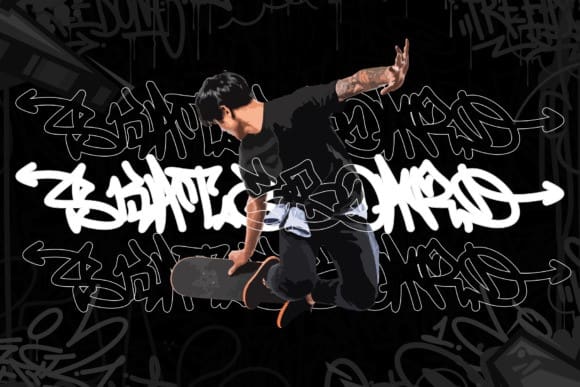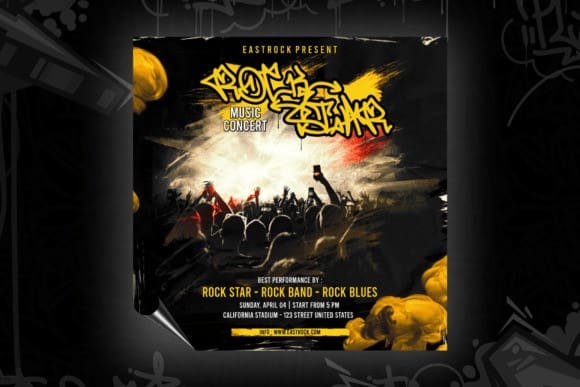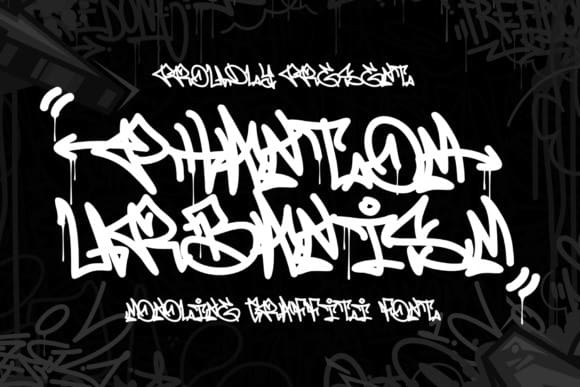
Phantom Urbanism Font
Phantom Urbanism Font is a monoline display font perfect for a wide range of urban or street-themed projects such as streetwear, logos, car/motorsport decals, skateboard decals, and other similar designs. With an edgy and bold appearance, Phantom Urbanism brings energy and attitude to your work. Whether you’re looking to create a strong and impactful design or add a touch of urban style to your projects, PhantomUrbanism is the font for you.